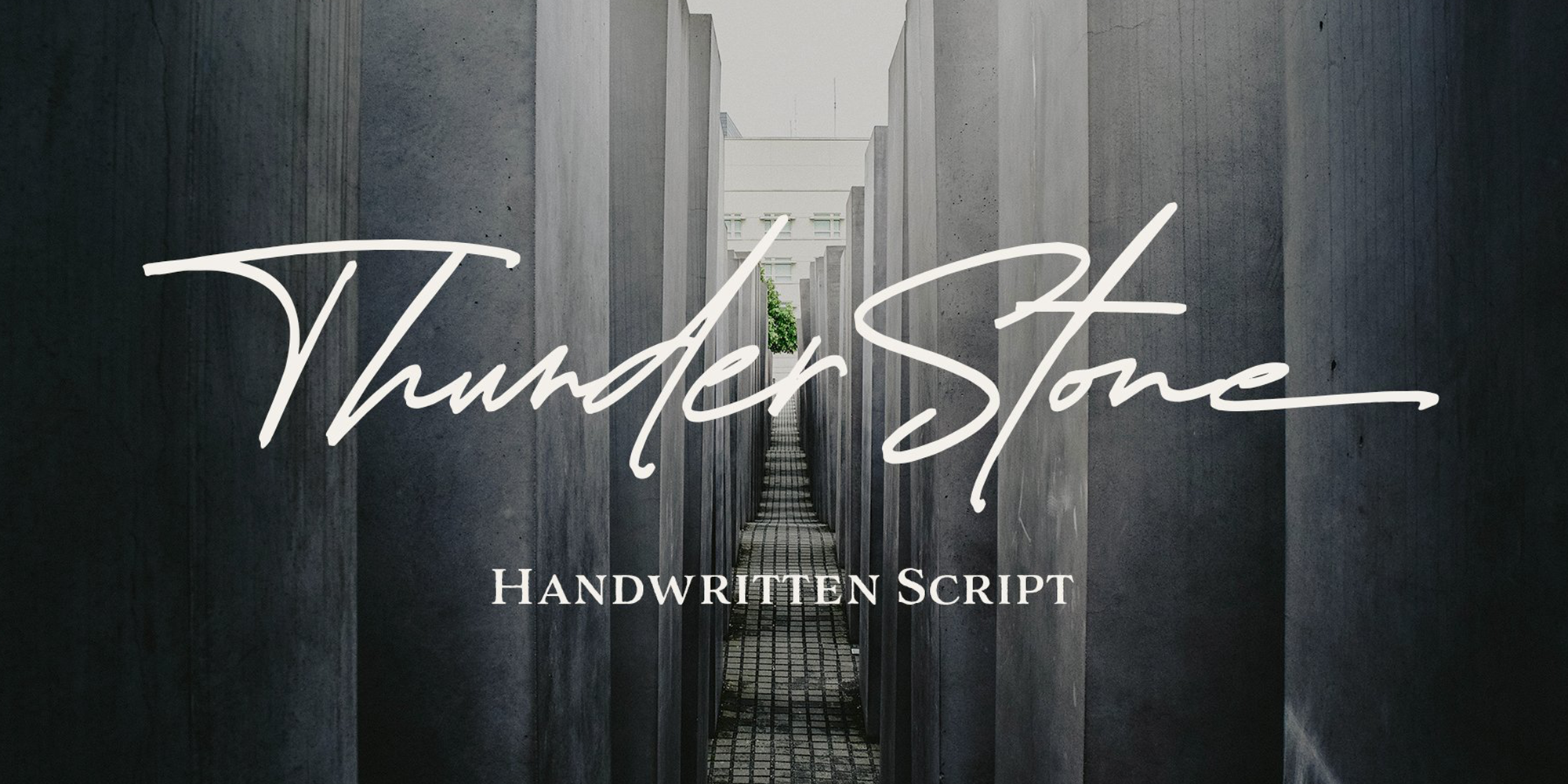
The Thunder Stone Script Font is an excellent choice for designs that aim for a robust, energetic, and distinctly handcrafted script aesthetic. Imagine it boldly gracing the logo of a custom motorcycle shop, adding a powerful visual punch to outdoor adventure branding, or bringing a rugged, authentic feel to artisanal product labels. It's also perfectly suited for impactful event posters, vintage-inspired t-shirt designs, dynamic sports graphics, and any project where you want to convey a sense of strength, individuality, and a unique, personal touch. Its often sweeping strokes, natural imperfections, and assertive presence make it ideal for conveying confidence and a memorable statement.
What makes the Thunder Stone Script Font so exciting is its ability to instantly infuse a design with a feeling of raw energy and genuine craftsmanship. It frequently features expressive brush strokes or a slightly weathered texture that mimics real hand-painting, making it feel organic and full of character. This font has a powerful and self-assured personality that can instantly elevate your design, making it feel both established and remarkably artistic. It’s designed to capture attention with its distinctive charm, ensuring your message is not just seen, but felt with a sense of enduring strength and authentic character.
The Thunder Stone Script Font family typically might include a range of stylistic alternates, swashes, and ligatures, which are crucial for creating truly convincing and varied handwritten effects. While it might often be presented in a single, impactful weight to emphasize its script nature, the richness comes from its extensive set of contextual alternatives that allow for seamless connections between letters. These variations empower designers to create a truly commanding and memorable display, ensuring the Thunder Stone Script Font Free Download can adapt to a wide array of projects while maintaining its signature, powerful charm.